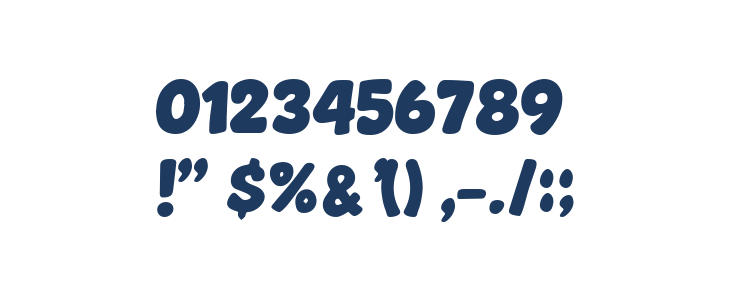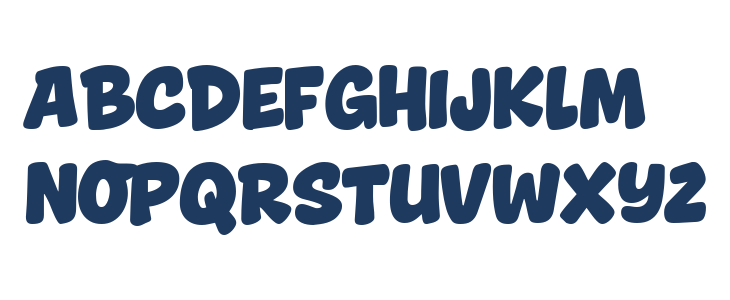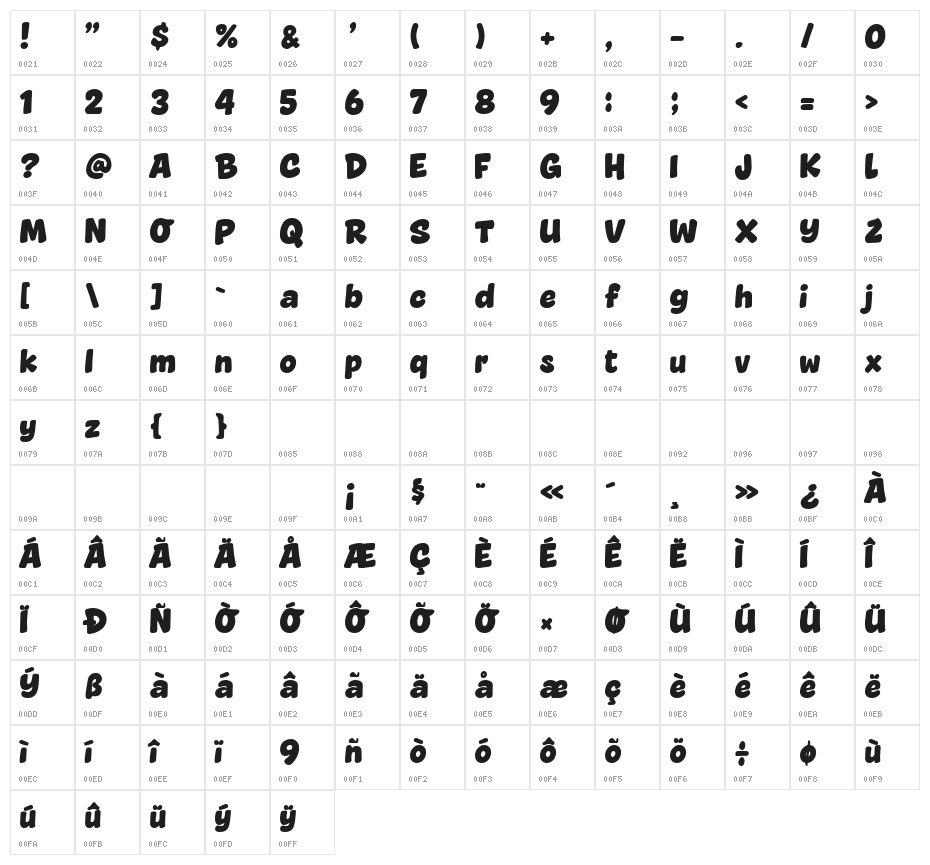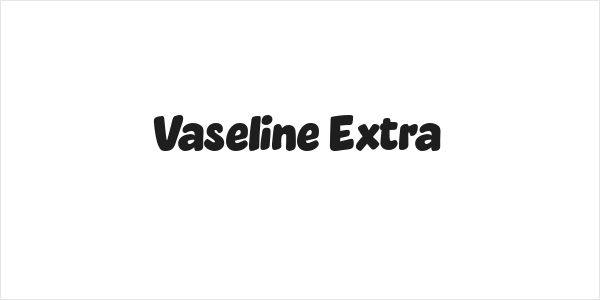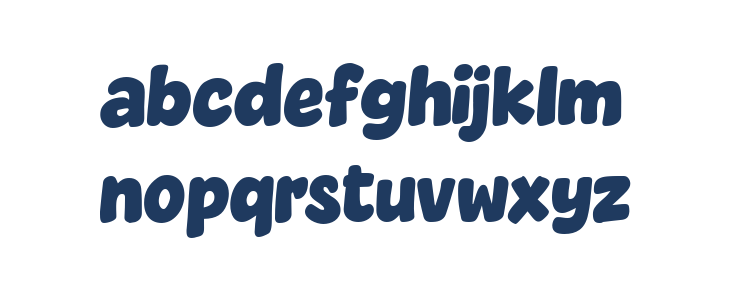
Vaseline Extra Font
Vaseline Extra Description
A playful, bold, rounded sans-serif font with thick, uniform strokes and soft, bubbly edges, giving it a friendly and approachable appearance. The characters are wide with generous spacing and consistent weight throughout.
| Overall Style | Playful, Decorative, Modern |
| Use Case | Headlines, Logos, Posters, Packaging |
| Proposed Projects | Children's books, posters, branding for playful products, packaging, social media graphics. |